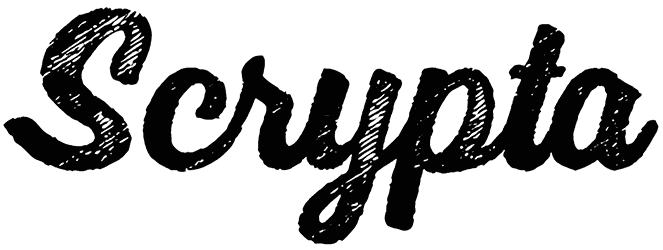
Scrypta Font
Using a hand-lettering visual for your text will give it a ravishing mood, and this stamp font is able to do it well. The characters have a natural and a bit old-fashioned form that will make your design unique and memorable. There is no offer for numbers and punctuation marks, but the Scrypta font can serve as a nice style for your intended designs.